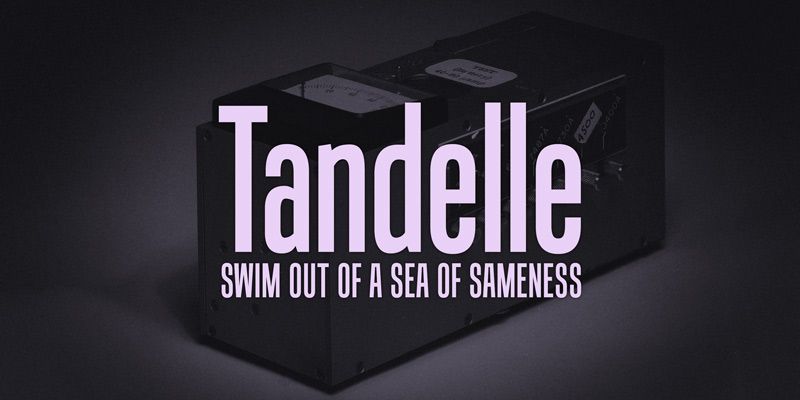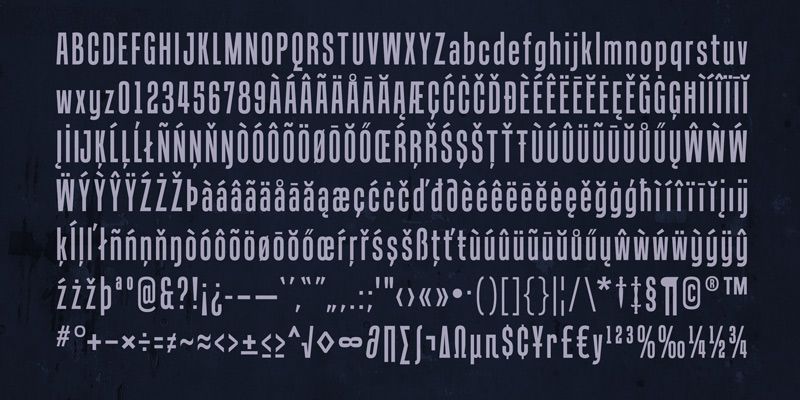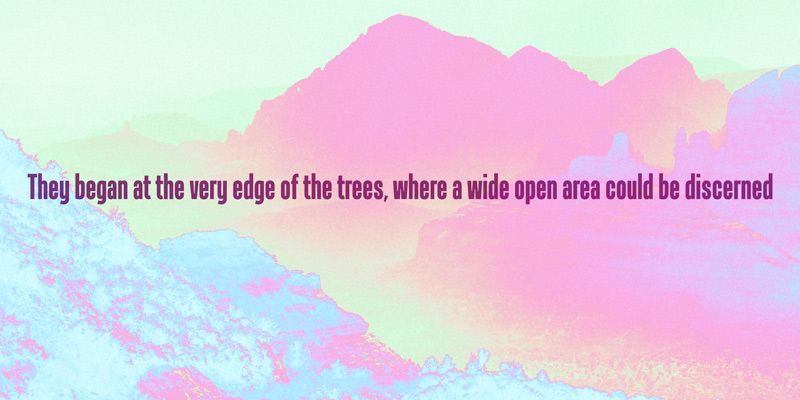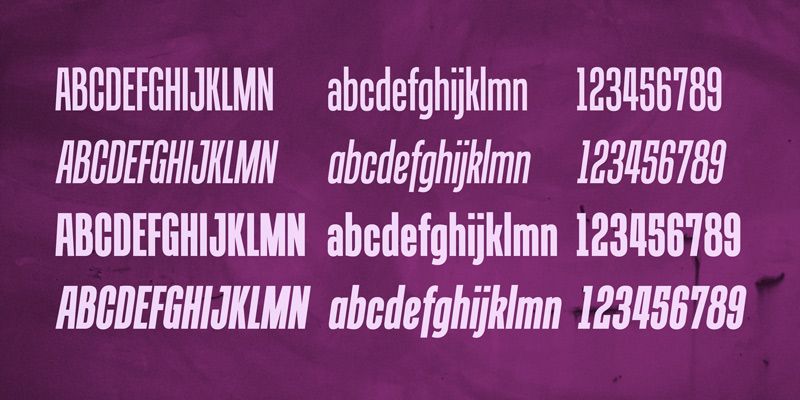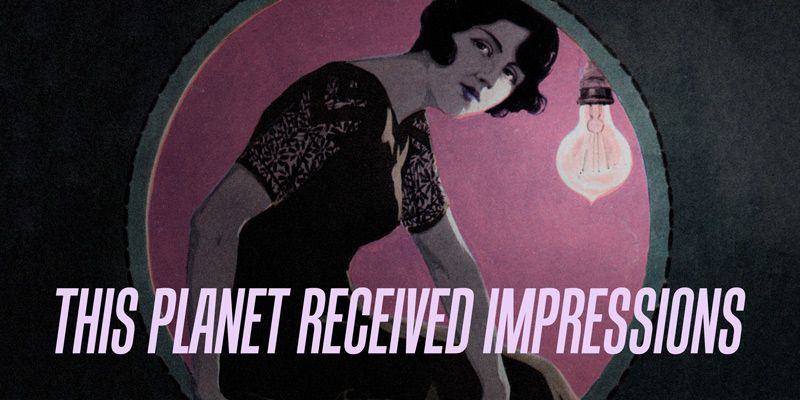
Tandelle compresses a sans serif into tight proportions while keeping its letter shapes pointed and energetic. Flat points on vertical forms such as A meet sharper horizontal points such as Z, creating a distinctive rhythm in names that need to fit a narrow space. Its compact stance works on tall cans, slim packages, transit graphics, equipment labels, and game interfaces where a word should stay large without spreading too far sideways. Regular and Bold each have an italic, so a small display system can shift emphasis without changing its underlying shape. Long model names and narrow labels benefit from that concentrated, energetic construction.